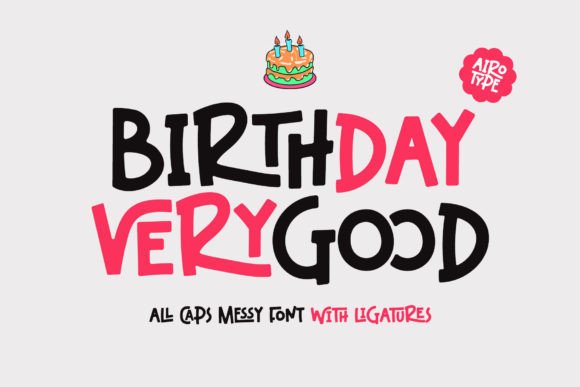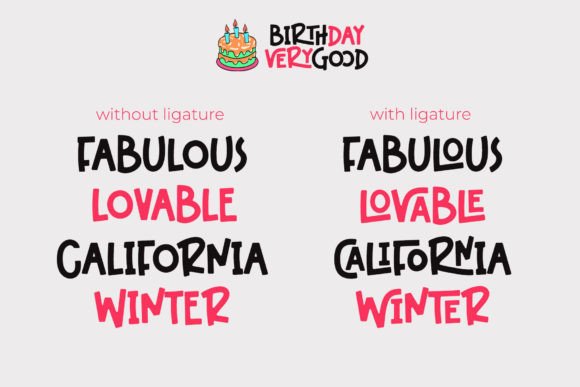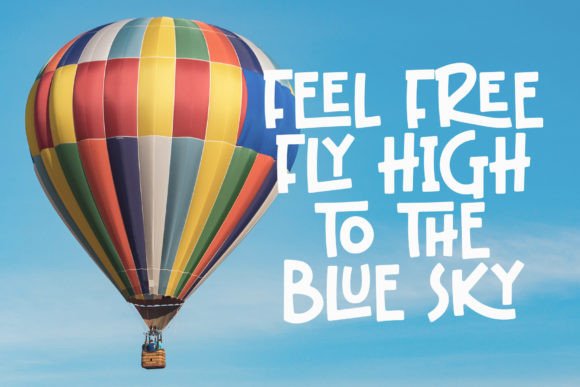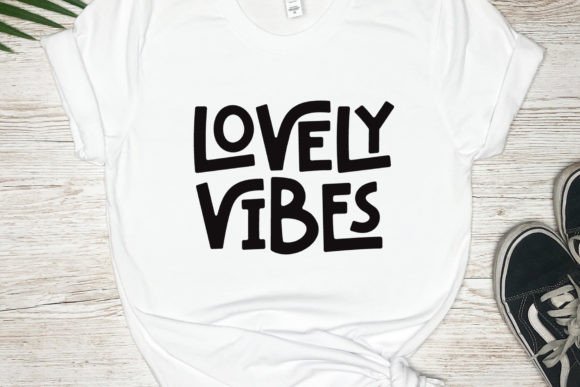
Birthday Verygood Font
Birthday Verygood is a messy and cute display font. Its edgy and quirky vibe is perfect for creating designs that require a laid-back accent but also need to make an impact!Birthday Verygood is PUA encoded which means you can access all the glyphs and ligatures with ease!